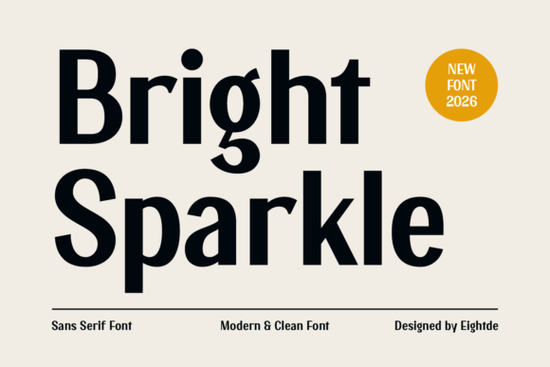
If you've been searching for a clean sans-serif font that feels both modern and approachable, Bright Sparkle Font might be exactly what you need. It combines geometric structure with subtle organic curves, giving your text a polished yet welcoming look. Whether you're designing planners, stickers, greeting cards, or digital content, this typeface keeps things readable without feeling cold or stiff.
What Makes Bright Sparkle Different from Other Sans-Serif Fonts?
Most sans-serif fonts lean heavily into either strict geometry or playful casualness. Bright Sparkle strikes a balance between the two. The letterforms follow a logical, well-proportioned structure, but the strokes have a gentle flow that adds warmth. It's the kind of font that looks professional on a business card and friendly on a birthday invitation.
This versatility matters because, as a designer or small business owner, you probably work across different projects. You need a typeface that adapts without looking out of place.
Who Is This Font Best For?
Bright Sparkle works well for a range of creative projects and people:
- Planner and journal designers The clean letterforms stay readable at smaller sizes, which is essential for weekly and monthly layouts.
- Print-on-demand sellers Mugs, tote bags, and t-shirts benefit from fonts that are legible at a glance.
- Greeting card makers The hand-crafted touch in the strokes adds personality without sacrificing clarity.
- Digital content creators Social media graphics, blog headers, and email banners look sharp and inviting.
- Custom sticker designers Whether for planners or packaging, the font holds up well at various scales.
- Small businesses Branding materials like menus, price tags, and signage stay consistent and easy to read.
How Does It Compare to Similar Fonts?
If you're exploring different sans-serif options, it helps to compare a few. For example, Campus has a more structured, academic feel that suits educational materials and formal branding. Meanwhile, Matters brings a different personality that leans more contemporary and editorial.
What sets Bright Sparkle apart is how naturally it bridges casual and professional contexts. You don't need to second-guess whether it fits the tone of your project it almost always does.
For those who prefer a more decorative aesthetic, Aesthetic Things offers a distinct style that works well for themed designs and artistic projects. But if your priority is versatility and everyday usability, Bright Sparkle is a stronger everyday choice.
What Types of Projects Work Best with This Font?
Here are some practical ways to use Bright Sparkle in your work:
- Wedding invitations and event cards Pair it with a script font for an elegant yet modern combination.
- Brand logos and wordmarks Its balanced proportions make it reliable for logo work, especially for lifestyle and beauty brands.
- Website headers and UI text Clean sans-serif fonts improve readability across screens, and Bright Sparkle performs well digitally.
- Product packaging From candle labels to soap boxes, the font communicates quality without being overly formal.
- Social media templates Instagram posts, Pinterest pins, and story templates look cohesive with a consistent typeface.
Any Tips for Pairing and Formatting?
Pair it wisely. Bright Sparkle works beautifully alongside handwritten or script fonts. Try combining it with a flowing calligraphy style for headings while using Bright Sparkle for body text. The contrast creates visual interest while keeping everything easy to read.
Mind your spacing. Like most sans-serif fonts, slightly increased letter spacing can improve legibility, especially for all-caps text. A small adjustment in tracking often makes a big difference.
Test at multiple sizes. Before finalizing a design, check how the font looks at both small and large scales. Its clarity holds up well across sizes, but it's always worth confirming for your specific layout.
A good typeface does quiet heavy lifting in your designs. Bright Sparkle gives you that clean, friendly foundation to build on without overcomplicating things.